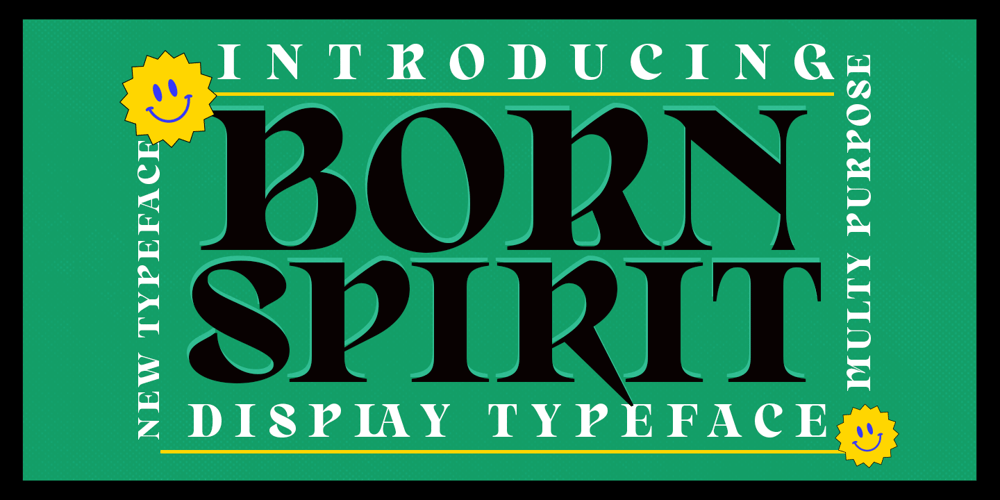
Born Spirit Font Family was designed by Zahratul Laila and published by Dora Typefoundry. Born Spirit contains 1 styles and family package options. Introducing the Born Spirit font, it is a display typeface that demands attention with a bold vintage look. Sharp hooks and strong lines create a sense of toughness. It’s great to tap into designers or product owners who need solutions to make their designs look more uniquely elegant.Features: Uppercase, numbers, punctuations; Multilingual support. PUA Encoded We highly recommend using a program that supports OpenType features and Glyphs panels like Adobe apps and Corel Draw, so you can see and access all Glyph variations. This type of family has become the work of true love, making it as easy and fun as possible.I really hope you enjoy it!Thank you Enjoy the font and go get creative ๐